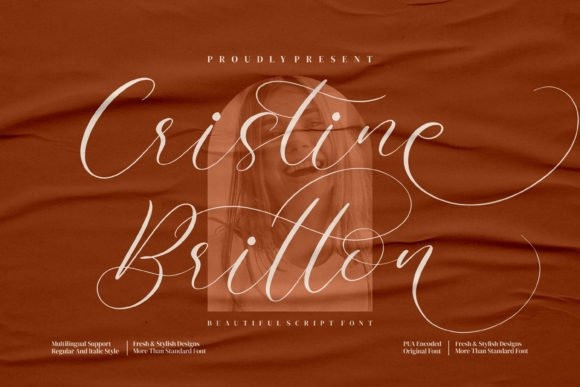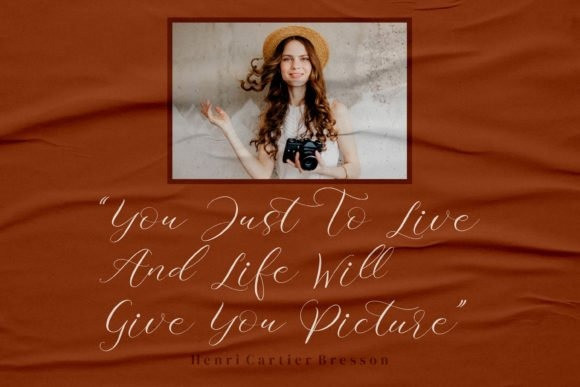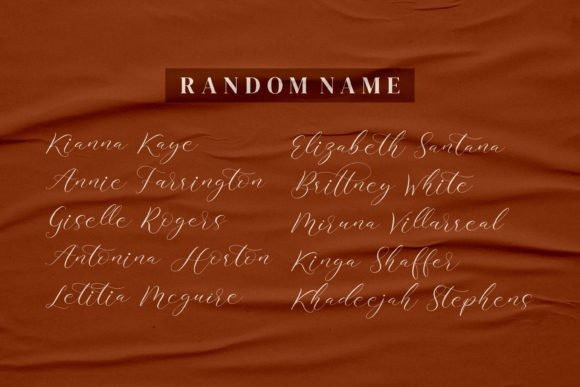
Rahaely Script Font
Introducing Rahaely, a elegant script font with a lot of alternates character.
This font is perfect for logotype creation, lettering compositions, wedding invitations, fashion projects, book design cover, magazines typography, cards, packagings, posters, branding and more.
Come with Opentype feature with a lot of alternates, its help you to make great lettering. This font is also support multi language.